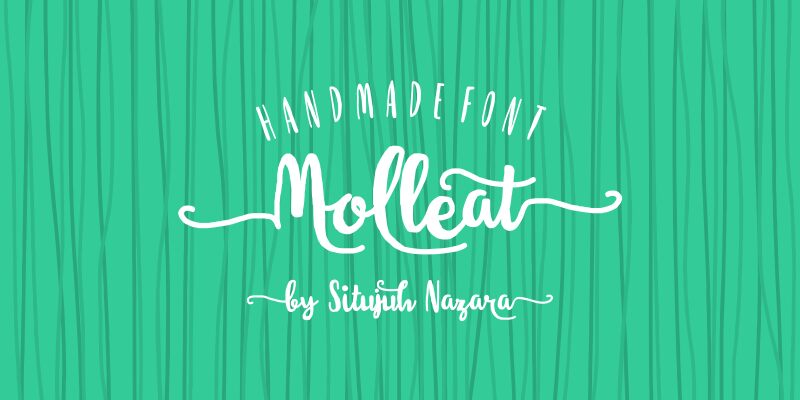
Molleat is a captivating brush font that exudes a sense of fluidity and movement. The script-like strokes create a harmonious and organic aesthetic, evocative of handwritten calligraphy. The condensed width of the letterforms adds a stylish, space-efficient touch, making Molleat an ideal choice for a wide range of design applications, from branding and logos to editorial layouts and signage. Its versatile nature allows it to seamlessly transition between modern and vintage-inspired designs, lending a touch of sophistication and elegance to any project.
Molleat's distinct personality shines through in its bold, expressive characters, making it a standout choice for designers seeking to add a touch of personality and personality to their work. Whether used as a focal point or as a supporting element, this font's captivating presence is sure to leave a lasting impression on viewers.
Molleat